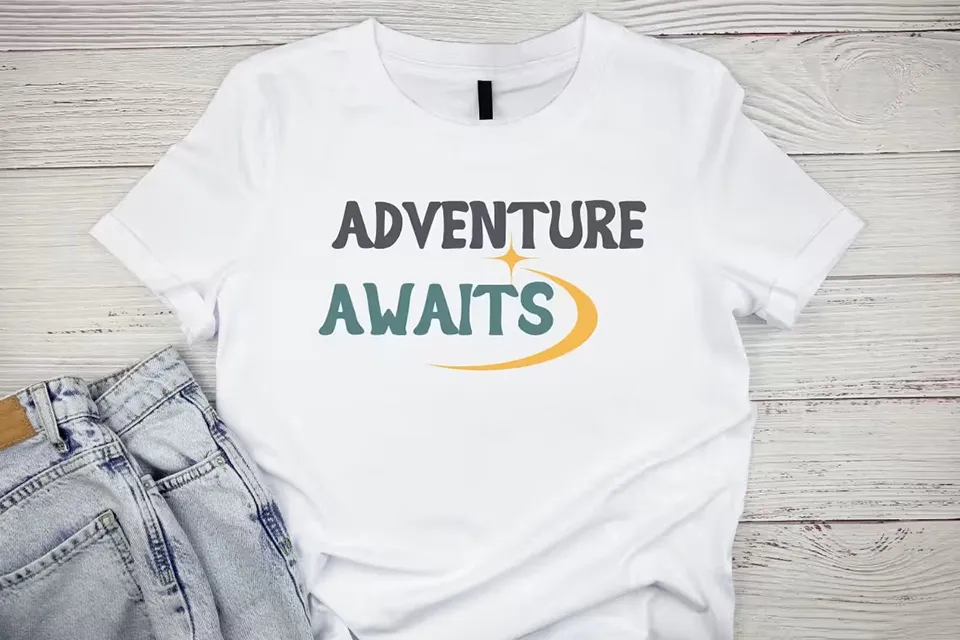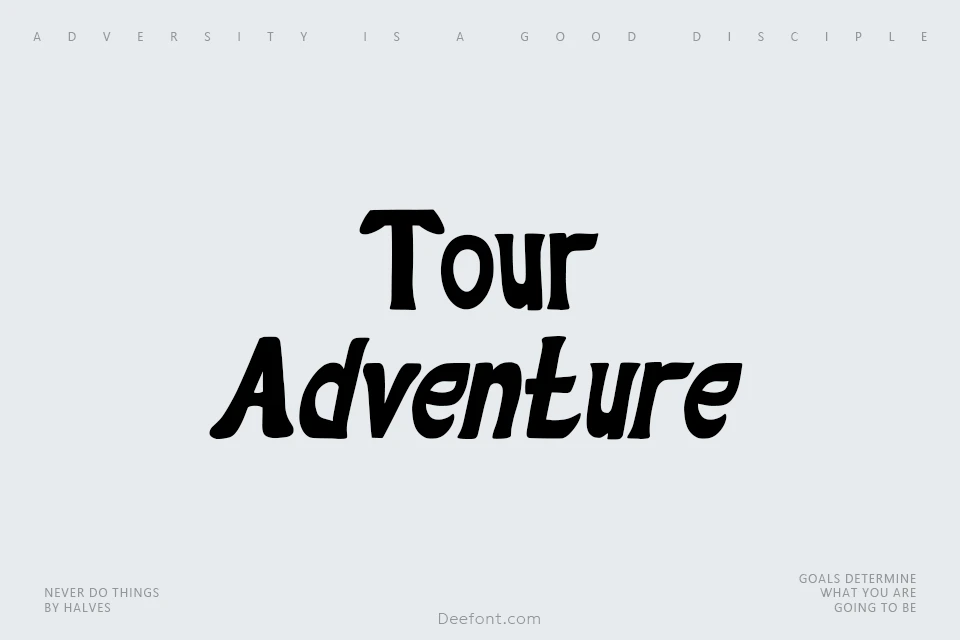
Tour Adventure Font
Tour Adventure Font is a bold and playful display font designed to bring excitement and creativity to your projects. With its unique, hand-drawn style and adventurous spirit, this typeface is perfect for travel-themed designs, posters, branding, and outdoor-inspired graphics. Tour Adventure combines a whimsical charm with strong visual impact, making it ideal for capturing attention and conveying a sense of exploration. Its versatile design works beautifully for both digital and print applications, adding personality and energy to any creative endeavor. Embark on a design journey with Tour Adventure and let your ideas stand out with this captivating font!